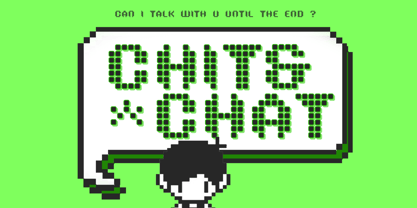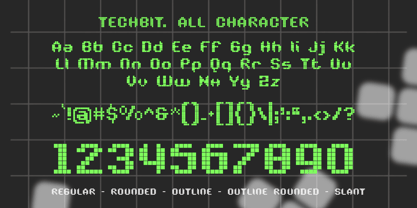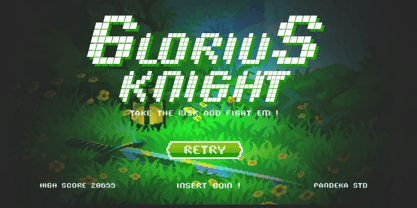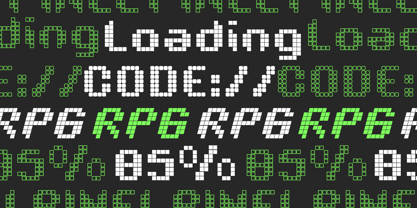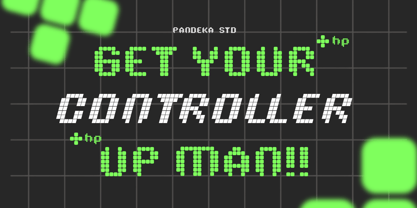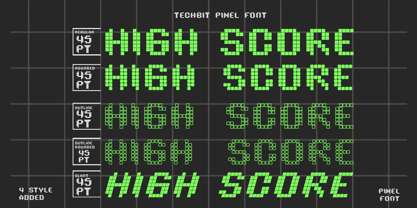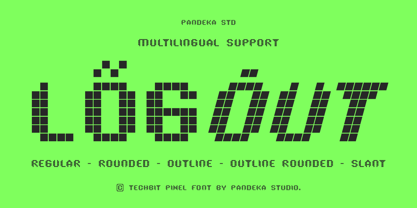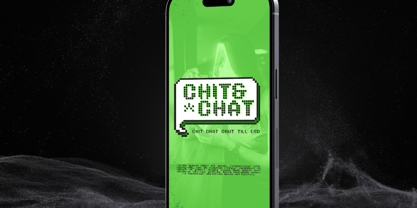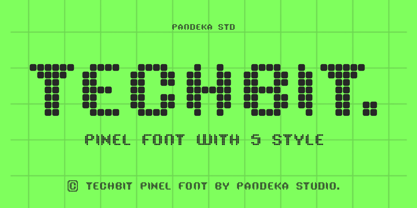
Techbit
by Pandeka Studio
The Techbit Font Family was designed by Sagara Nararya and published by Pandeka Studio. Techbit contains 5 styles and family package options. More about this family
Techbit is a modern pixel font family designed to bring a clean, digital aesthetic to your projects. With its sharp, blocky letterforms and retro pixel-inspired style, Techbit blends nostalgia and simplicity, making it perfect for games, apps, branding, posters, and more. Whether you're looking for a classic pixel look or a contemporary twist, Techbit delivers versatility and creative potential.
Techbit comes with 5 unique styles: Regular, Outline, Rounded, Outline Rounded, and Slant. Each style provides a distinct vibe, allowing you to mix, match, and create dynamic, eye-catching designs.
• 5 Styles: Regular, Outline, Rounded, Outline Rounded, and Slant
• Complete set: Letters, numbers, symbols, punctuation
Designers: Sagara Nararya
Foundry: Pandeka Studio